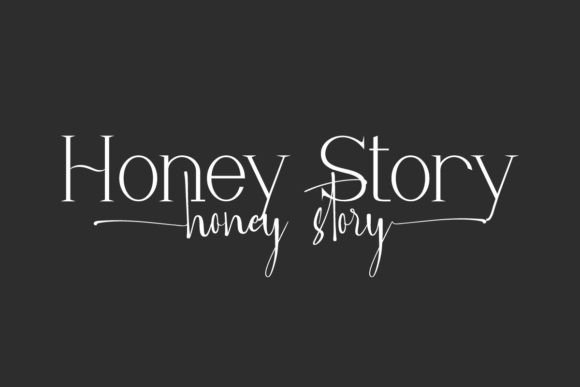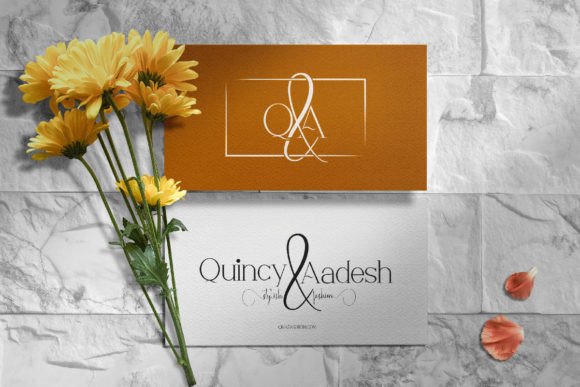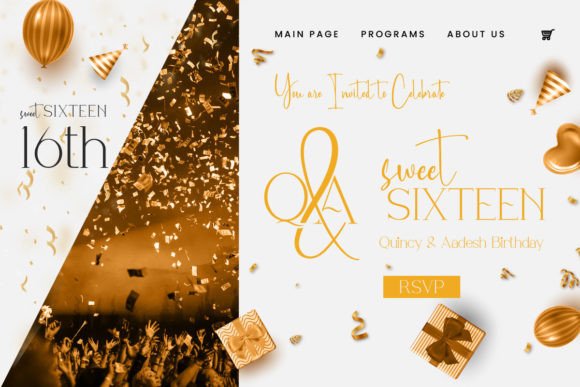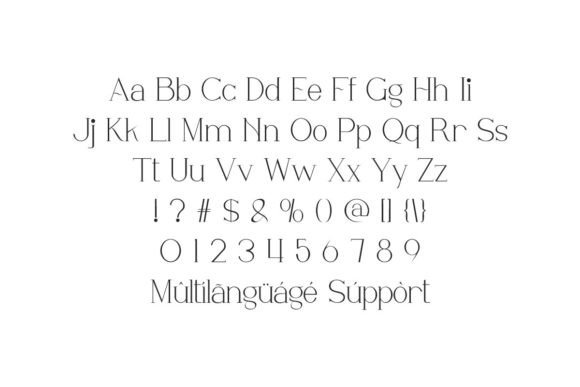
Honey Story Font
About the Honey Story Font
Meet Honey Story Font, a stunning font that brings a touch of elegance and professionalism to any design. Honey Story Font is a luxury font duo. It has two styles: serif display and signature script. Both of these fonts have a similar style and will give an elegant and expensive impression that can complement any design you have.
Honey Story’s elegant serif and script pair excels in branding projects requiring a touch of luxury, particularly logos, short headlines, and packaging design where its refined forms shine. It’s ideal for high-end products, boutique businesses, or special event invitations. However, its decorative nature makes it unsuitable for body text or UI elements; the intricate details would be illegible at smaller sizes.
The serif display font pairs beautifully with clean sans-serif fonts like Montserrat or Lato for a balanced contrast, enhancing readability when used together. For a more cohesive luxurious feel, consider pairing it with a similarly elegant yet simpler script font like Great Vibes.
Honey Story projects an overall sophisticated and slightly romantic personality, conveying quality and timeless appeal. Avoid using it in contexts requiring a modern, minimalist, or playful aesthetic.
Honey Story Font Usage Examples
Honey Story Font Example